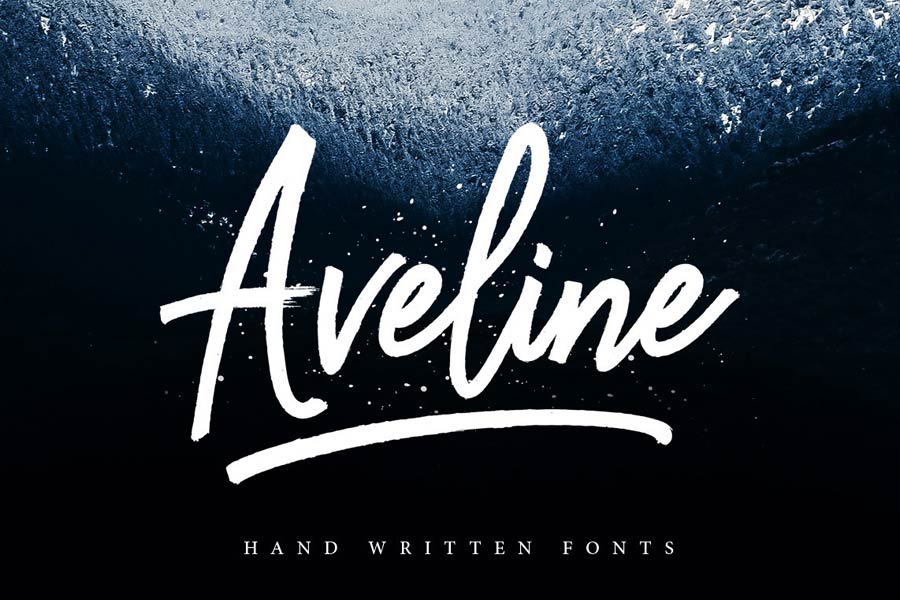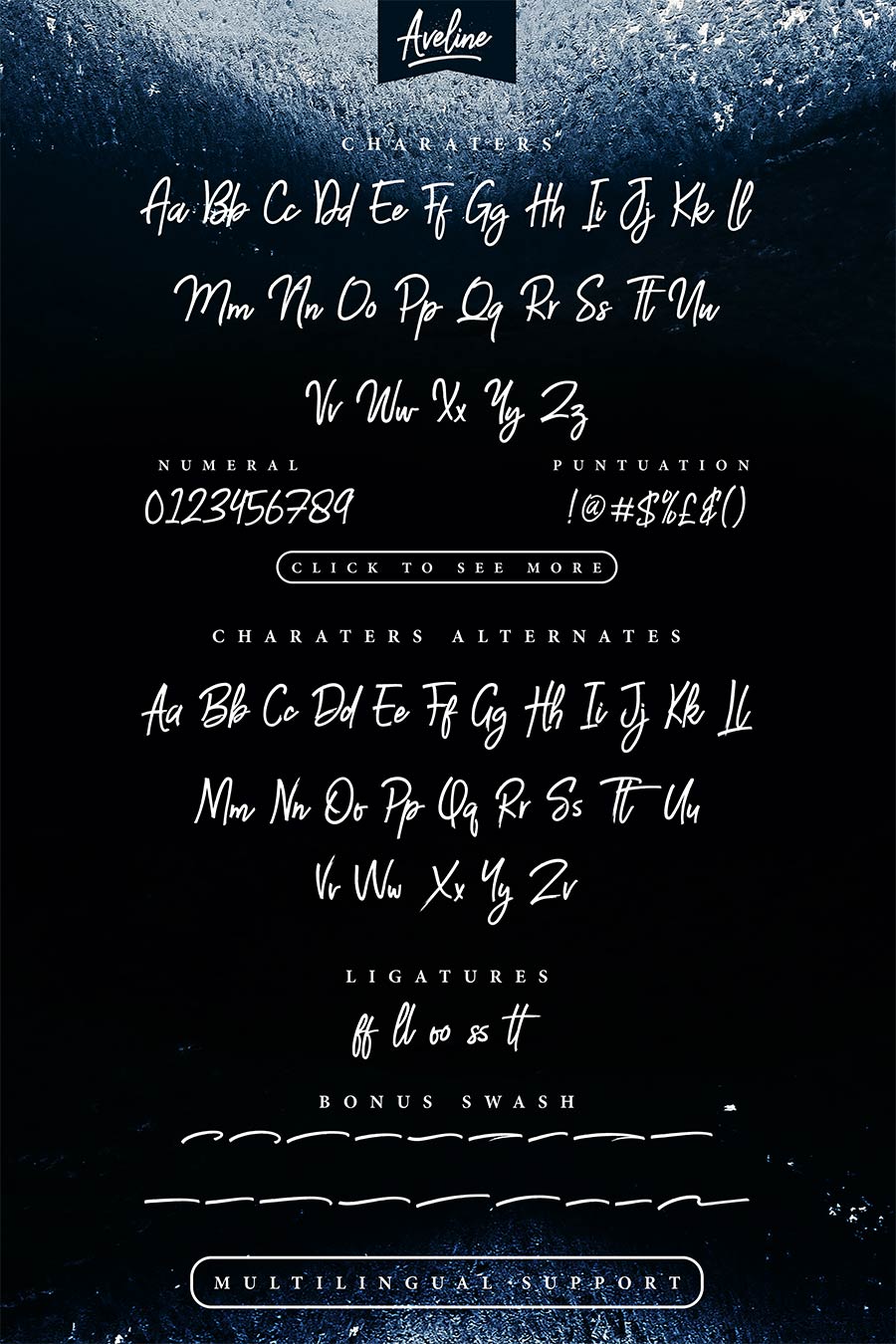
Aveline Script is a handwritten font set featuring stylised medium strokes. It’s very suitable for logos, posters, labels for packaging, greeting cards and more. The font comes with the main font and also another complementary swashes font. It contains a full set of lower & uppercase letters, a large range of punctuation, numerals, and multilingual support.
- Designer: faisal tanjung
- Styles: 2